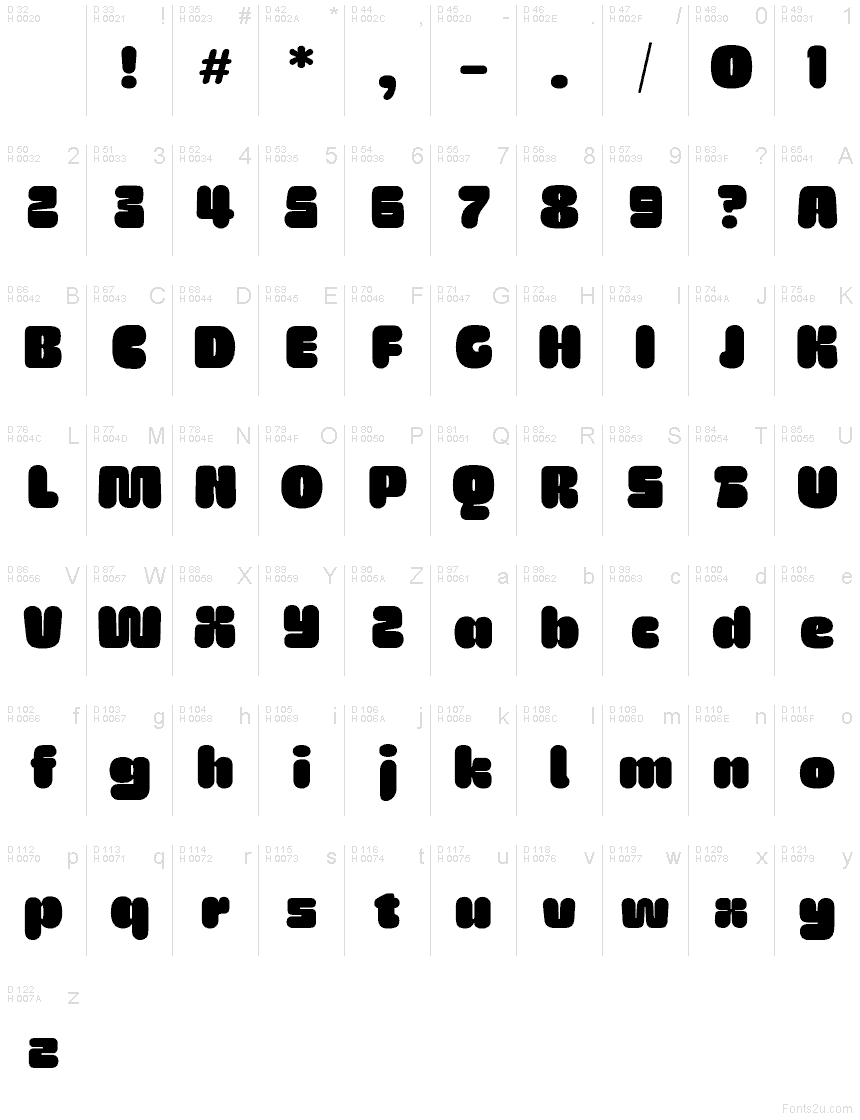
SG Wristan Regular DEMO
SG Wristan font by Studio Gulden is a free groovy display typeface. Its signature look is a set of chunky, pillowy forms with rounded corners that lock together like glossy tiles, creating a smooth, bouncy rhythm. The weight feels soft yet sturdy, so headlines come off bold without shouting—more wink than yell.
Using SG Wristan, text clusters into friendly blocks that read fast at large sizes, making it shine on posters, festival branding, snack packaging, stickers, album covers, social headers, and pop-up signage. This free font works beautifully when paired with a slim geometric sans for body copy; keep tracking slightly open to let the bubbly shapes breathe.